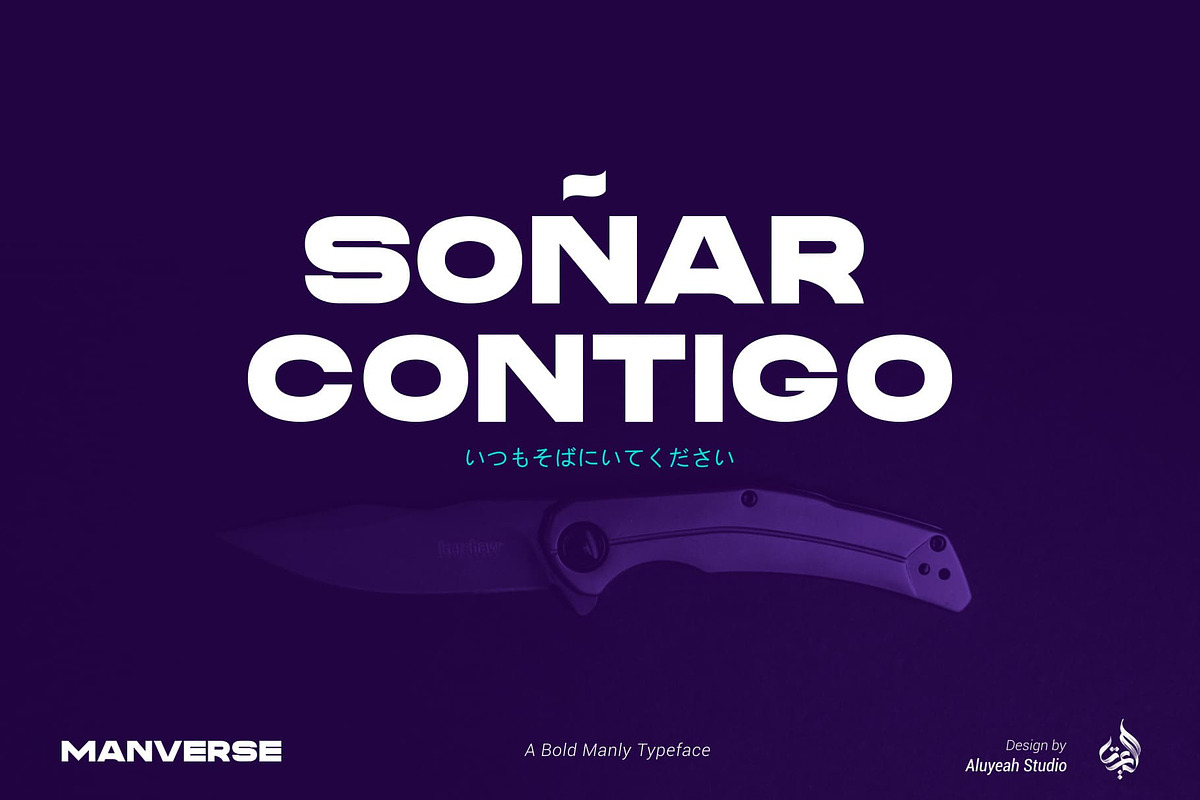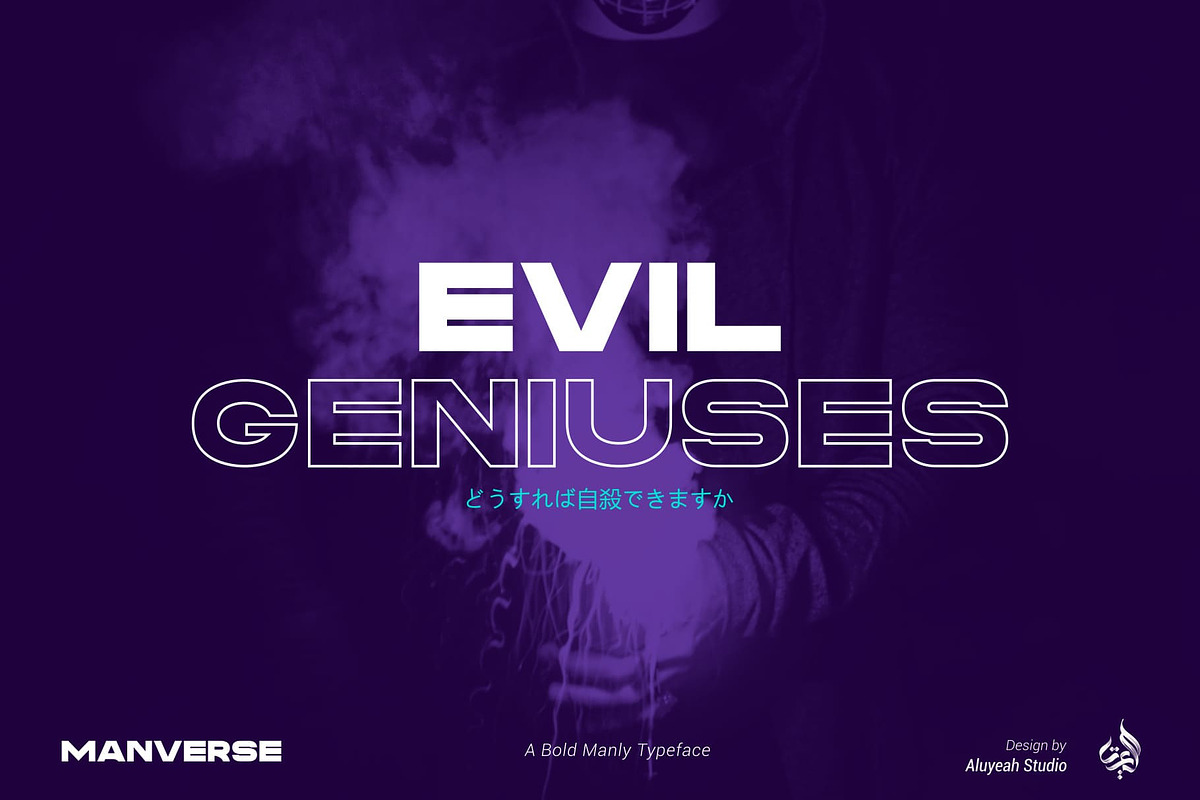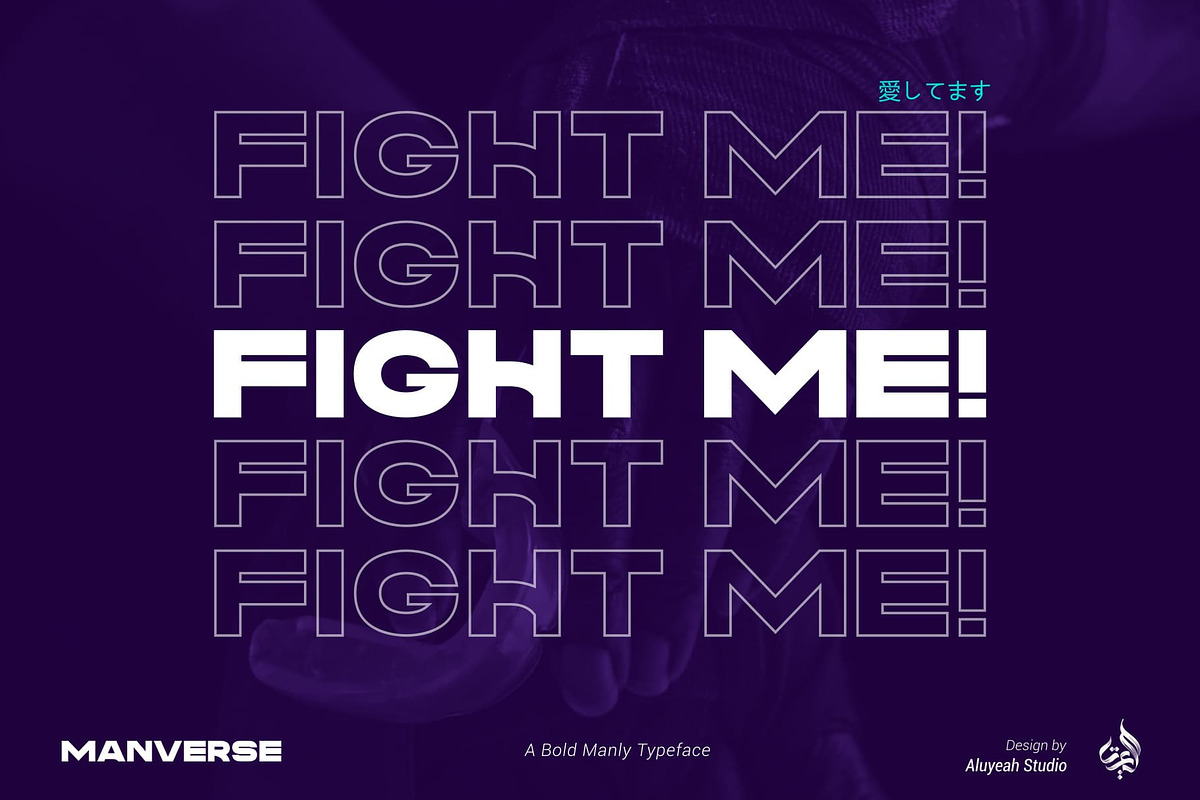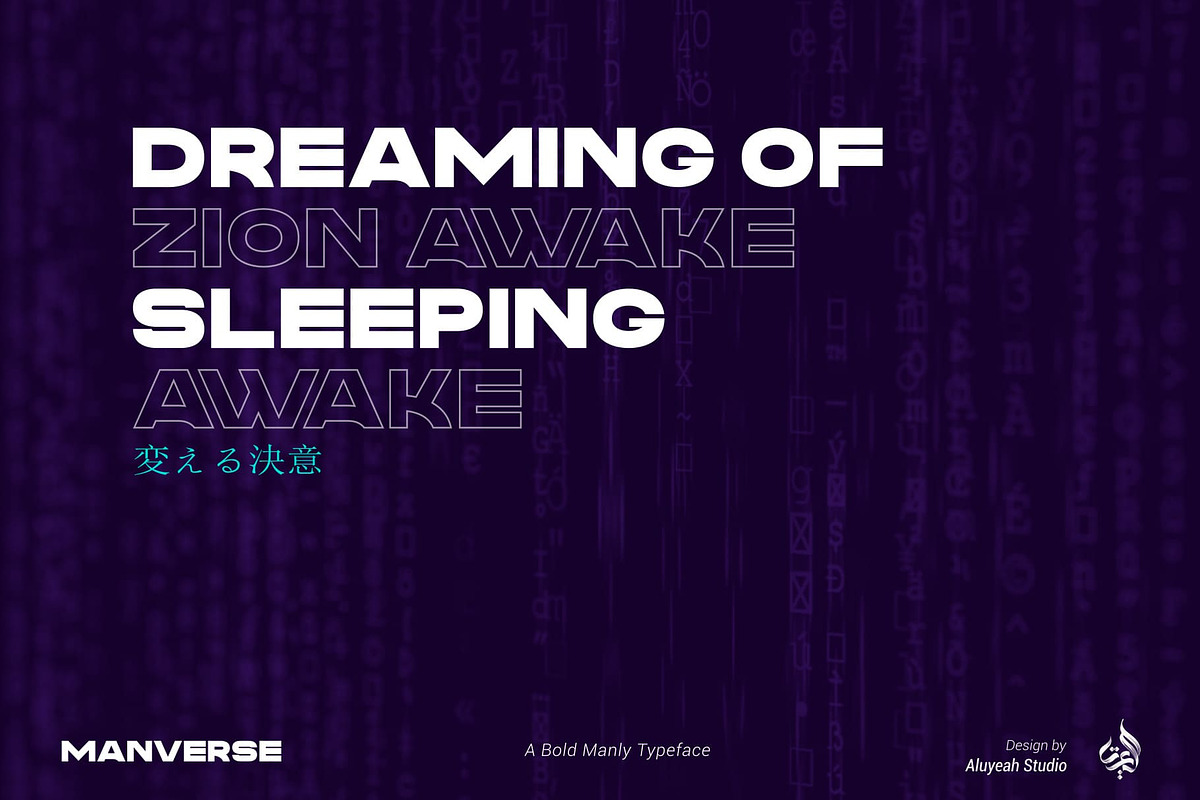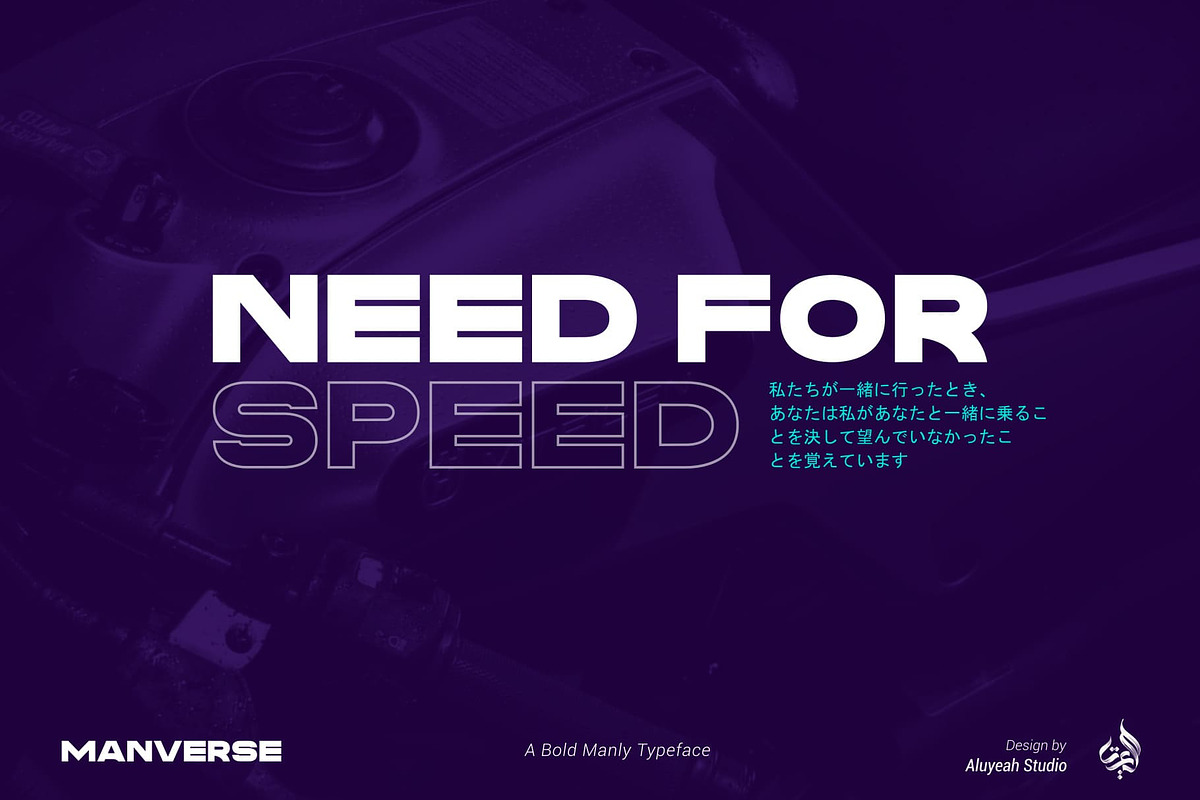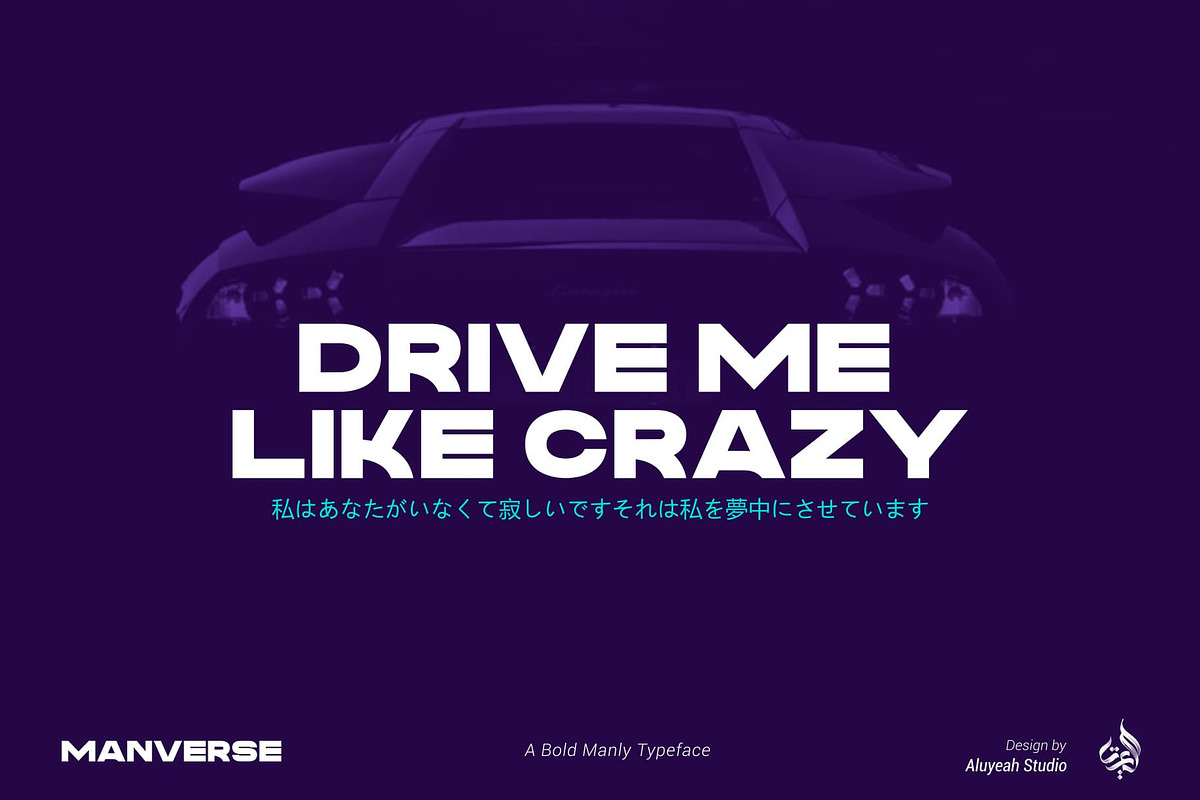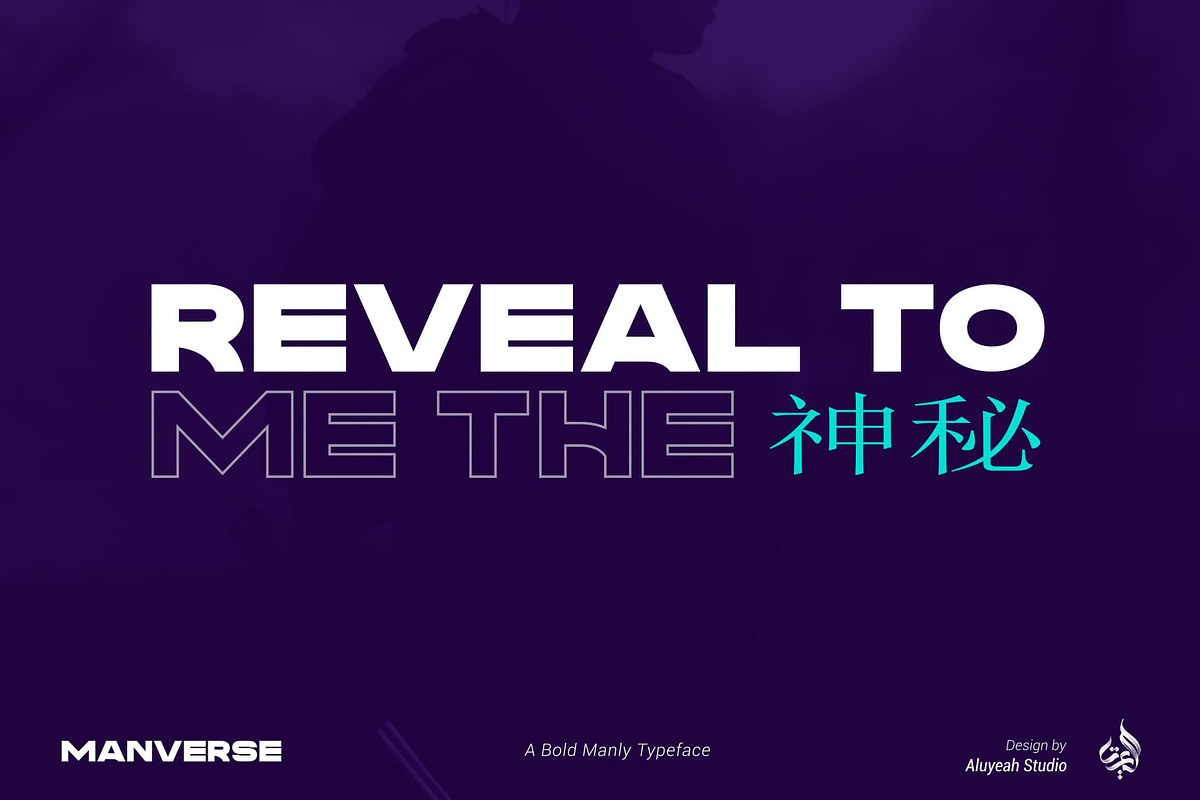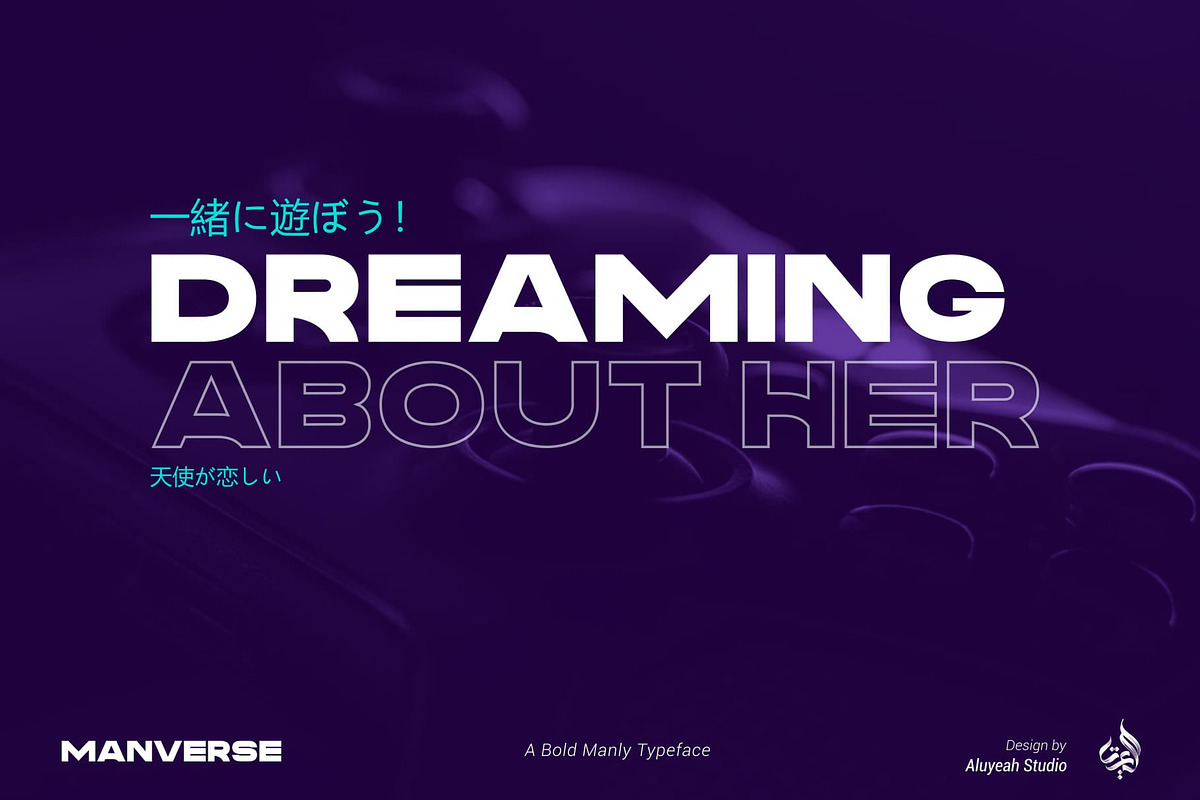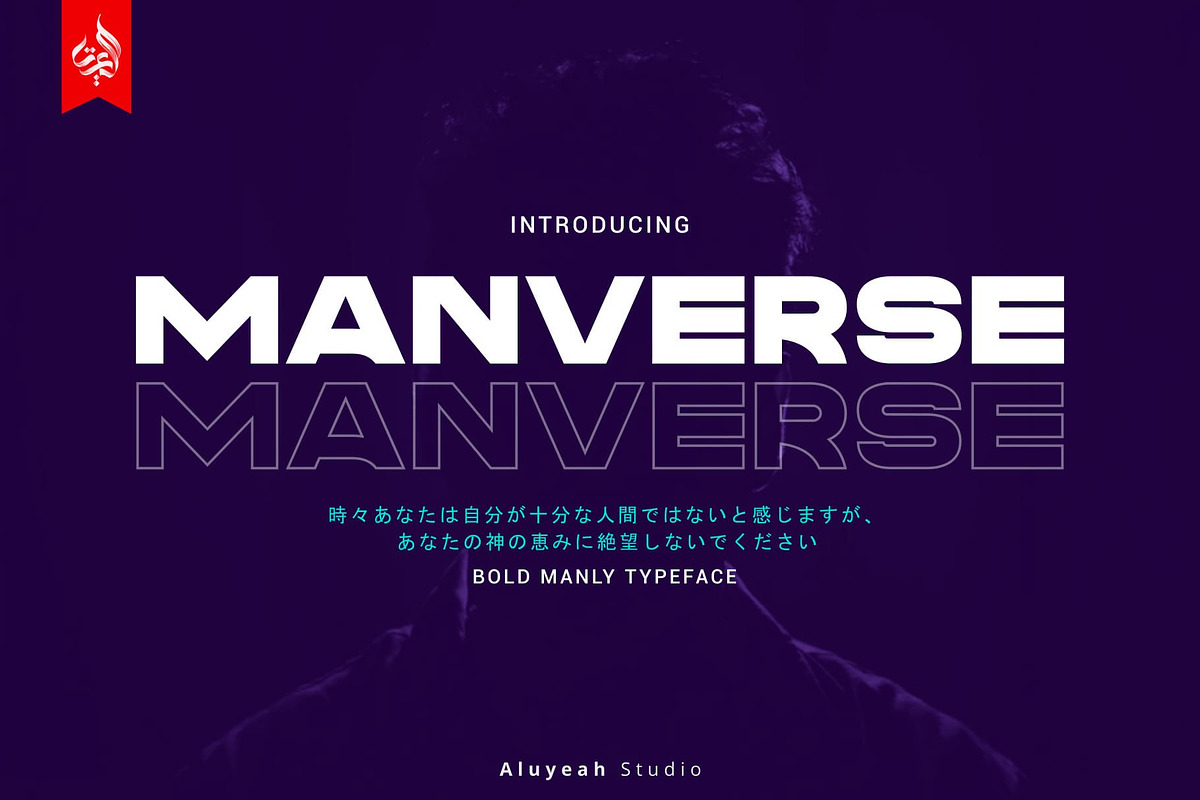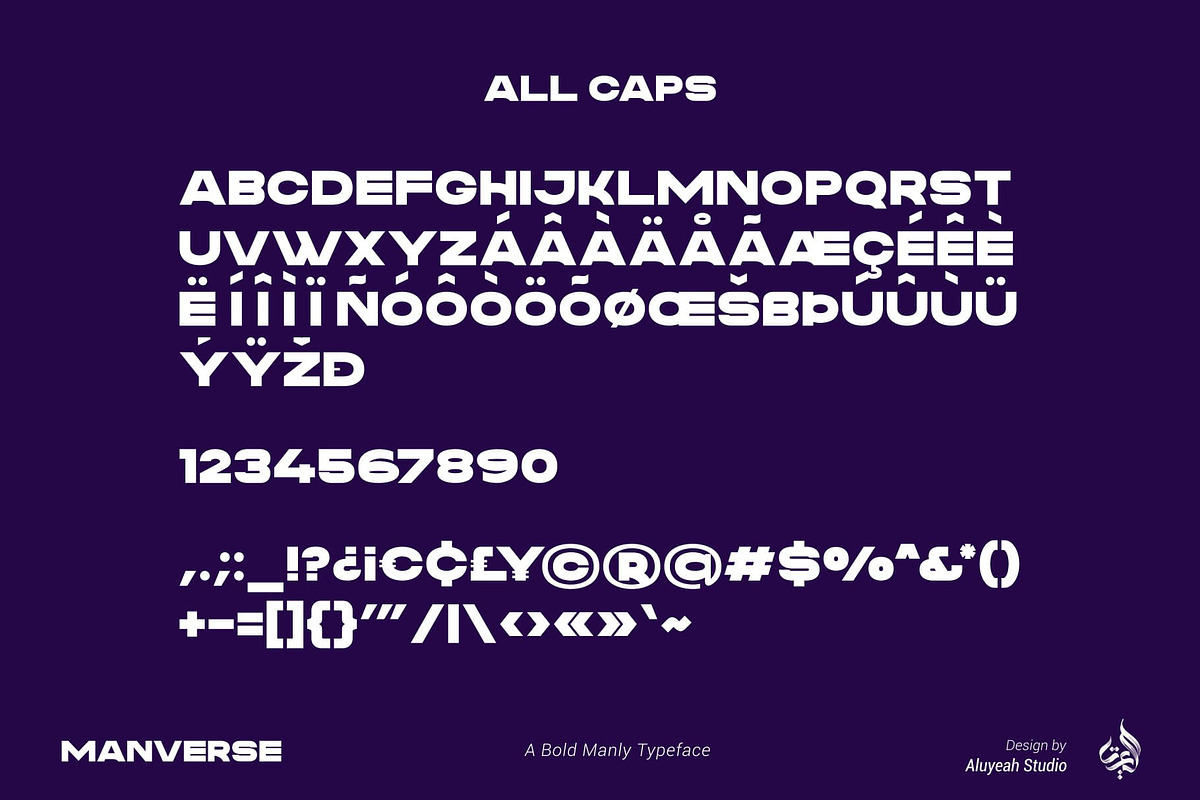
Manverse | Strong Sans Serif
Hallo Aluyeaholic! Introducing Manverse, a bold manly typeface. Inspired by the things that make up the world of men. With a bold, strong, and firm vibe. Coming with 2 styles, all caps and multilingual support.
Very suitable for magazine, headline, website, ads, product package and all type of design project you have.